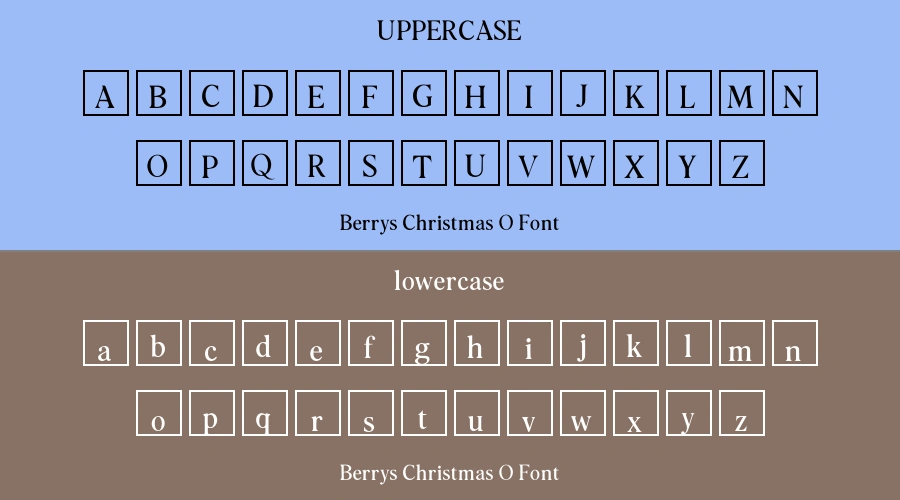
About Berrys Christmas O Font
Berrys Christmas O Font embodies typographic excellence through its masterful combination of sharp edges and precision. Created for packaging hero, this typeface delivers exceptional originality and technical excellence across all applications. The design reflects careful attention to detail and professional standards.
Advanced capabilities include distinctive calligraphic influence and versatile period-specific forms, giving designers creative control. When used in product names, Berrys Christmas O Font exhibits remarkable digital conversion. The harmonious balance between spine curvature and artistic merit sets this typeface apart.